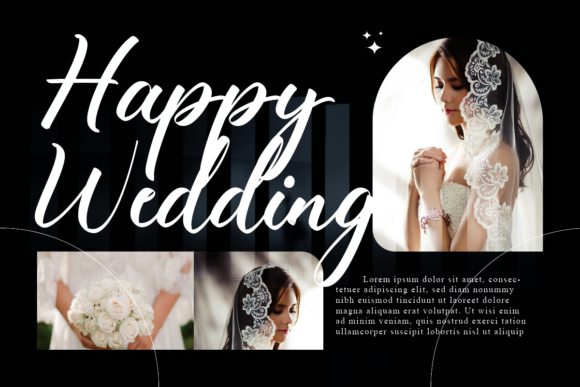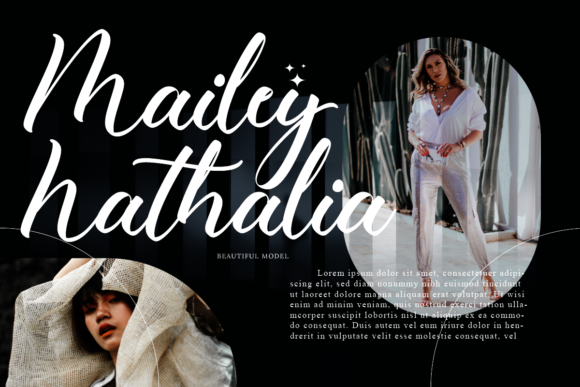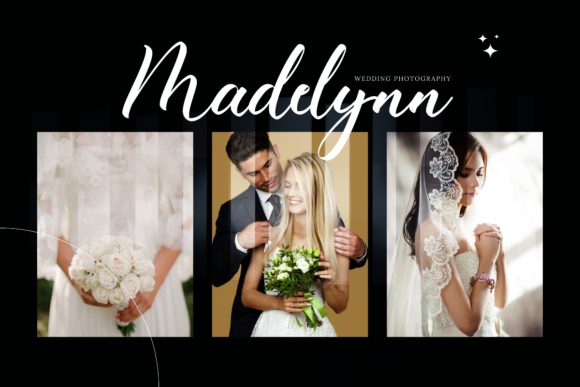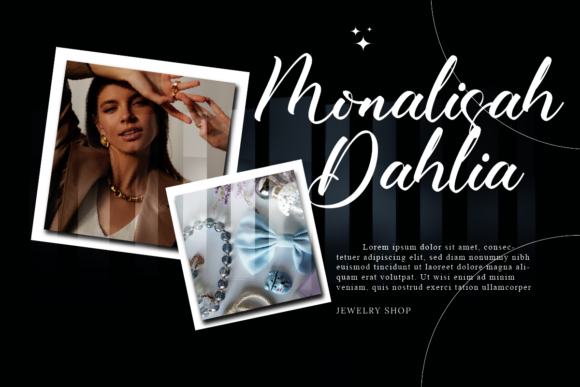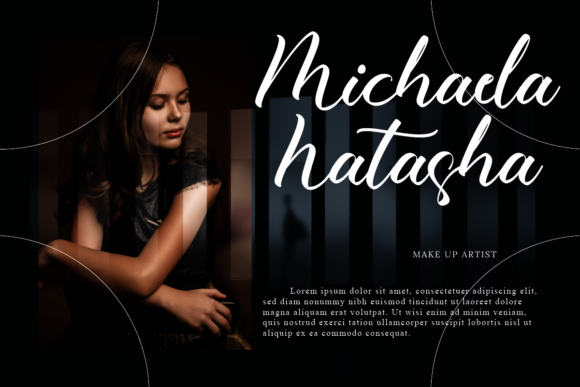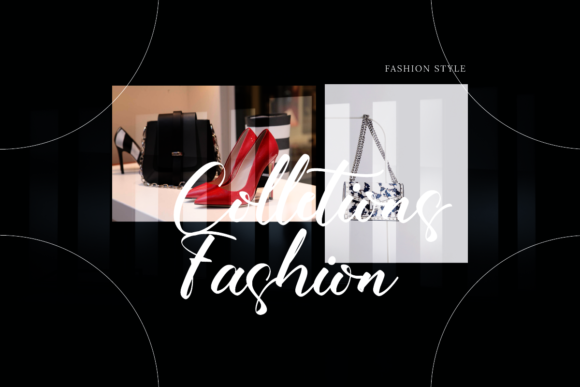
Discover the Elegance of Charlotte Catalina Font
Are you on the hunt for a font that exudes sophistication, elegance, and a touch of modern flair? Look no further than the Charlotte Catalina Font. This exquisite handwritten font is masterfully designed to capture the hearts of designers and crafters alike, making it a true favorite in the world of typography.
The Perfect Blend of Classy and Contemporary
Charlotte Catalina Font strikes the perfect balance between classic calligraphic influences and a fresh, contemporary feel. Its elegant strokes and beautiful letterforms make it an ideal choice for projects that demand a high level of sophistication. Whether you’re working on a wedding invitation, a branding project, or a packaging design, this font is sure to elevate your work to new heights.
What Makes Charlotte Catalina Font Stand Out?
- Unique and Exclusive Design: Charlotte Catalina Font boasts a distinctive and exclusive design that sets it apart from other fonts. Its handwritten feel is meticulously crafted to provide a personal touch to your projects.
- Versatility: This font is incredibly versatile, making it suitable for a wide range of applications, from digital designs to print materials.
- High-Quality Output: The font’s high-quality design ensures that your projects will look professional and polished, regardless of the medium.
- Experiment with Styles: Don’t be afraid to experiment with different styles and sizes. Charlotte Catalina Font offers a range of possibilities, from subtle and elegant to bold and expressive.
- Pair it with Other Fonts: For added visual interest, try pairing Charlotte Catalina Font with complementary fonts. This can help to create a unique and memorable design.
Whether you’re a seasoned designer or a crafter looking to add a personal touch to your projects, Charlotte Catalina Font offers endless possibilities. Here are a few tips to inspire your creativity:
- Wedding and Event Stationery: Use Charlotte Catalina Font to create beautiful wedding invitations, save-the-date cards, and other event stationery.
- Branding and Packaging: Elevate your brand with a sophisticated and elegant font. Charlotte Catalina Font is perfect for packaging design, logos, and marketing materials.
- DIY Projects: Add a touch of elegance to your DIY projects, such as handmade cards, scrapbooking, and other paper crafts.
Charlotte Catalina Font is a stunning handwritten font that offers the perfect blend of classy calligraphic influences and a fresh, contemporary feel. Its versatility, ease of use, and high-quality design make it an excellent choice for designers and crafters looking to elevate their projects. With Charlotte Catalina Font, you can add a touch of elegance and sophistication to any design, making it a valuable addition to your font collection.